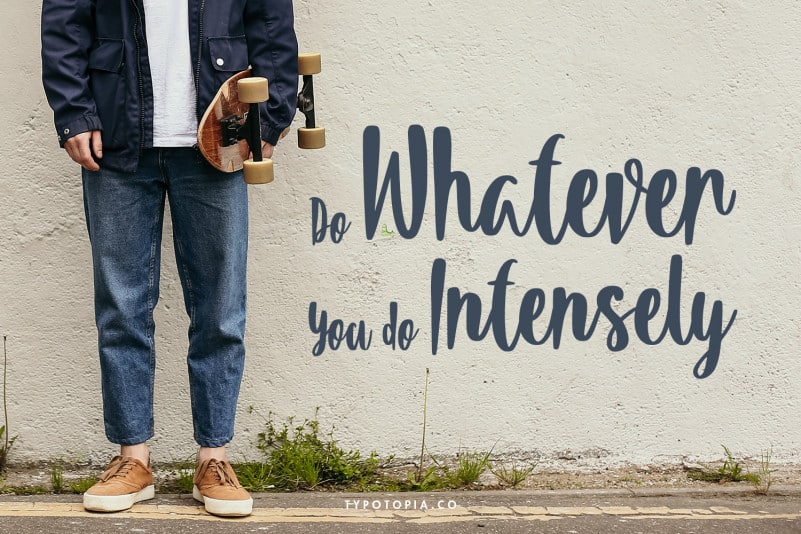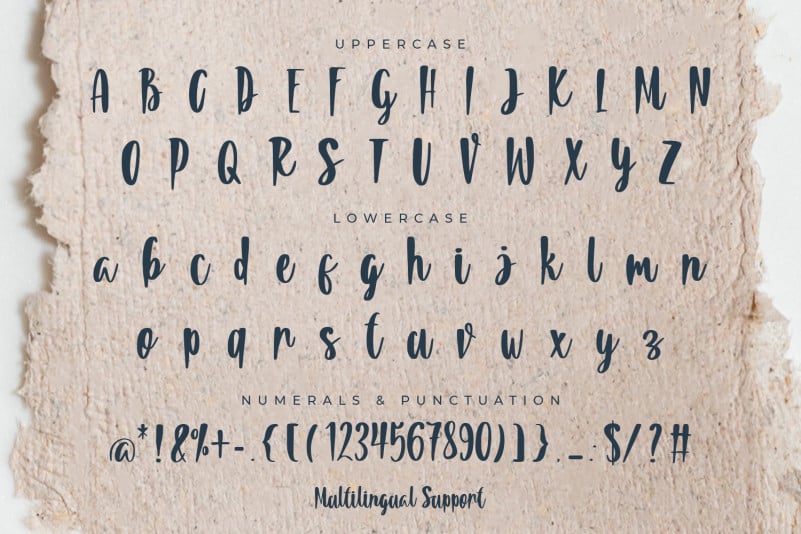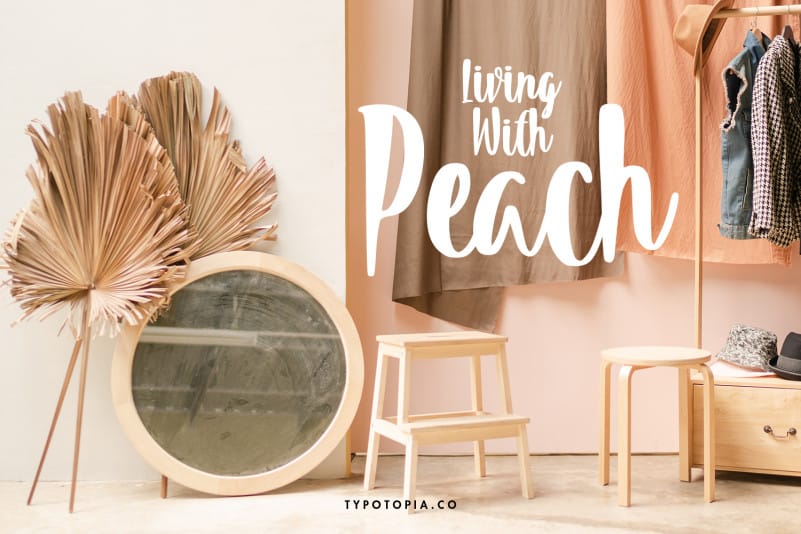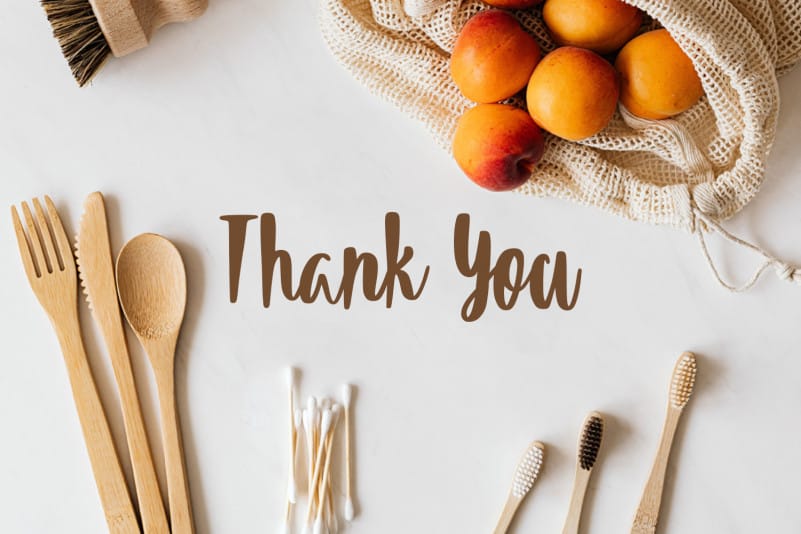
Summeria Handbrush Script Font
Summeria Handbrush Script Font is a Stylish Modern Calligraphy Font with Casual Style for your Design that is absolutely great for your next creative project such as logos, printed quotes, invitations, cards, product packaging, headers, Logotype, Letterhead, Poster, Apparel Design, Label, and etc.
Summeria Handbrush Script Font includes also support a Multilingual Characters. Making this Font a Swiss Army knife in your Font Library. It’s extremely fun to use as each word can be transformed to your liking.